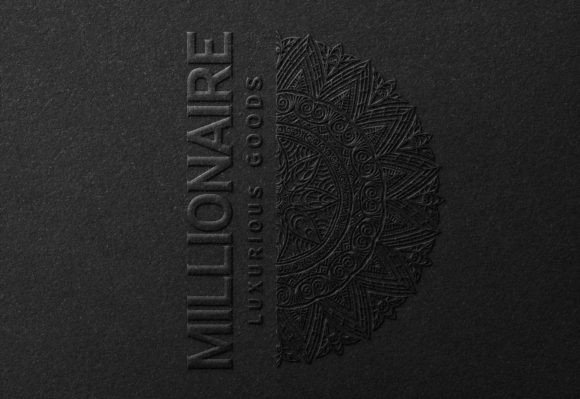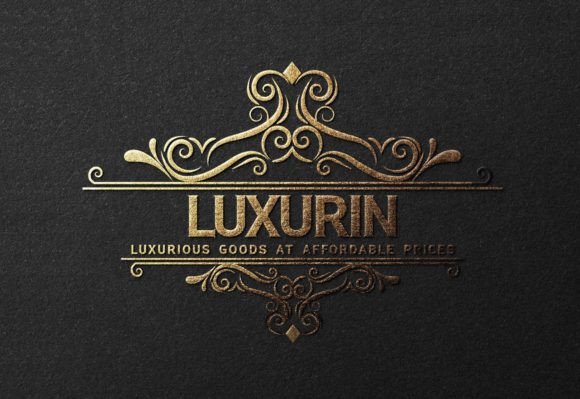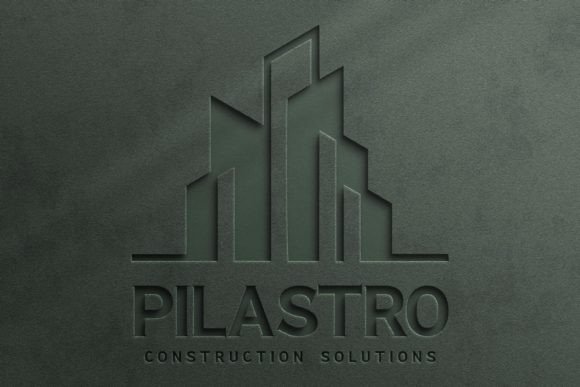
Ferrum Font: The Ultimate Elegant and Minimalist Slab Serif Typeface
Are you tired of being stuck in a design rut, unsure of which font style to use for your creative projects? Look no further than Ferrum Font, an elegant and minimalist slab serif typeface that is sure to breathe new life into your designs. In this article, we’ll dive into the world of Ferrum Font, exploring its unique features, benefits, and uses, and why it’s the perfect solution for designers and crafters looking for a versatile and stylish font.
The Versatility of Ferrum Font
Ferrum is an elegant and minimalist slab serif typeface that effortlessly bridges the gap between serif, slab serif, and sans serif fonts. Its unique design makes it an ideal choice for designers who want to add a touch of sophistication and elegance to their projects. Whether you’re working on a logo, brochure, or website, Ferrum Font is the perfect solution. Its clean lines, subtle curves, and minimalist aesthetic make it an excellent choice for a wide range of design applications.
Key Features of Ferrum Font
- Elegant and Minimalist Design: Ferrum Font boasts a sleek and sophisticated design that is both elegant and understated.
- Slab Serif Typeface: Ferrum’s slab serif design adds a touch of classic sophistication to any design project.
- Versatile: Ferrum Font is suitable for a wide range of design applications, from logos and brochures to websites and more.
- Easy to Read: Ferrum’s clean lines and simple design make it easy to read, even at small font sizes.
Benefits of Using Ferrum Font
So why choose Ferrum Font for your design projects? Here are just a few benefits of using this versatile and stylish font:
- Instant Professionalism: Ferrum Font adds a touch of sophistication and elegance to any design project, giving it an instant professional look and feel.
- Flexibility: Ferrum Font is suitable for a wide range of design applications, making it a great addition to any designer’s font library.
- Easy to Pair: Ferrum Font pairs well with a wide range of other fonts, making it easy to create harmonious and visually appealing designs.
Using Ferrum Font in Your Design Projects
So how can you use Ferrum Font in your design projects? Here are a few ideas to get you started:
- Logos and Branding: Use Ferrum Font to create a sophisticated and elegant logo that will help your brand stand out.
- Brochures and Flyers: Add a touch of class to your brochures and flyers with Ferrum Font, perfect for showcasing products or services.
- Websites: Use Ferrum Font to create a clean and professional-looking website that will engage and impress your visitors.
Tips and Tricks for Getting the Most Out of Ferrum Font
Here are a few tips and tricks for getting the most out of Ferrum Font:
- Experiment with Font Sizes: Ferrum Font looks great at a wide range of font sizes, so don’t be afraid to experiment and find the perfect size for your design.
- Pair with Other Fonts: Ferrum Font pairs well with a wide range of other fonts, so try pairing it with different fonts to create unique and visually appealing designs.
- Use in Combination with Images: Ferrum Font looks great in combination with images, so try using it to add a touch of elegance and sophistication to your designs.
In conclusion, Ferrum Font is an elegant and minimalist slab serif typeface that is perfect for designers and crafters looking for a versatile and stylish font. Its unique design, clean lines, and simple aesthetic make it an excellent choice for a wide range of design applications. Whether you’re working on a logo, brochure, or website, Ferrum Font is sure to make your design project come alive!